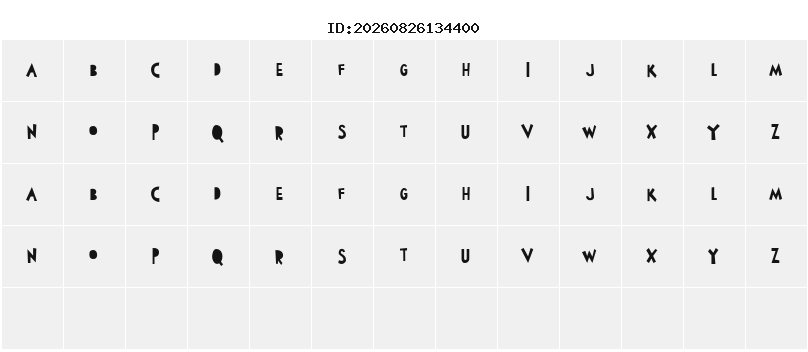
Walter Goes To America Preview
• Font Name: Walter Goes To America
• Full Font Name: Walter Goes To America
• Designer: Fred - 28fonts
• Manufacturer: 28fonts
About Walter Goes To America.ttf
Walter Goes To America.ttf is a modern, elegant sans-serif font designed for ultimate readability and visual harmony. Perfect for branding, headlines, web design, and print materials.